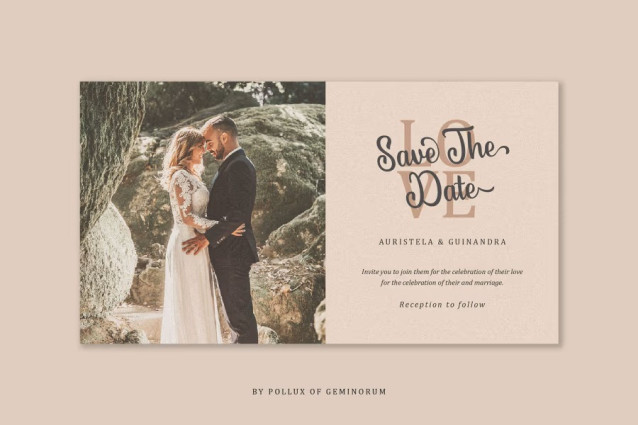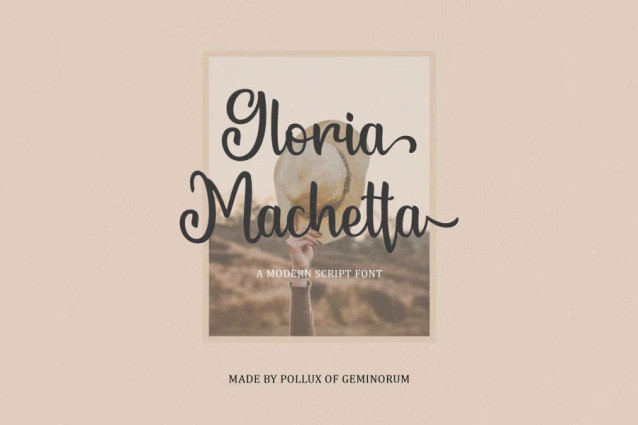
Gloria Machetta Font
Gloria Machetta Font is a chic, trendy script font that emanates confidence and versatility. Its stylish alternates and ligatures make this font the perfect match for any project.Gloria Machetta is PUA encoded which means you can access all glyphs and swashes with ease!Feel free to contact us if you have any question regarding this sweet typeface.